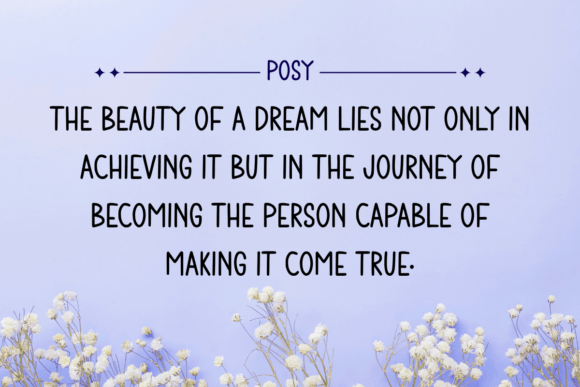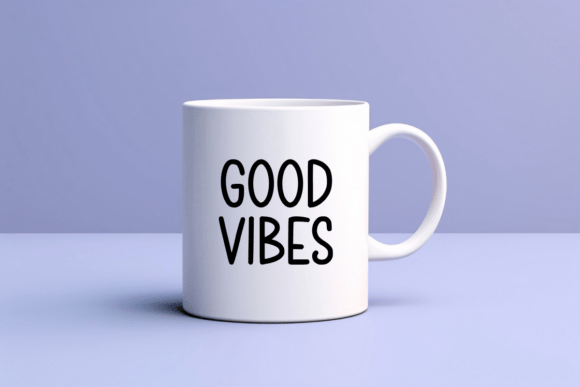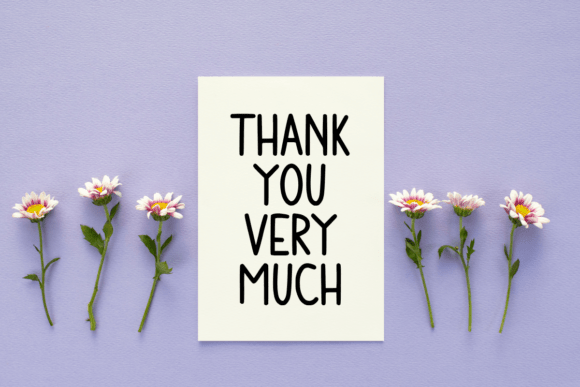
Introduction to Posy Font
Posy is a genuinely cute and approachable sans-serif font defined by its clean lines and wonderfully rounded terminals.
It effortlessly combines a modern, minimal aesthetic with a soft, friendly personality Unlike sharper sans serifs, Posy’s full rounding gives it a hand-drawn, gentle feeling , making it incredibly inviting and easy on the eyes.
Key Features of Posy Font